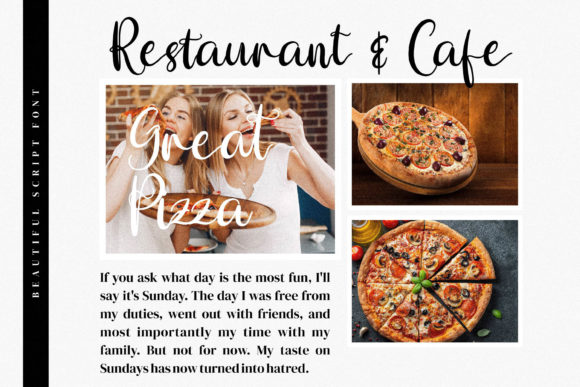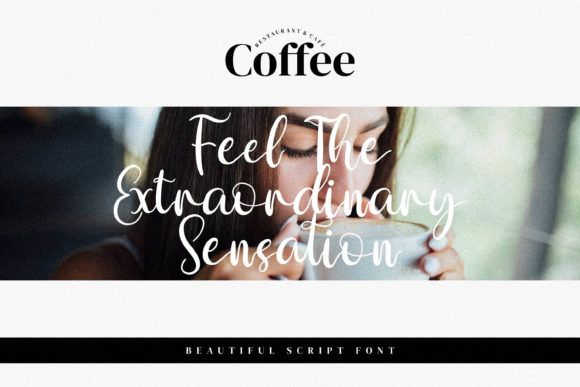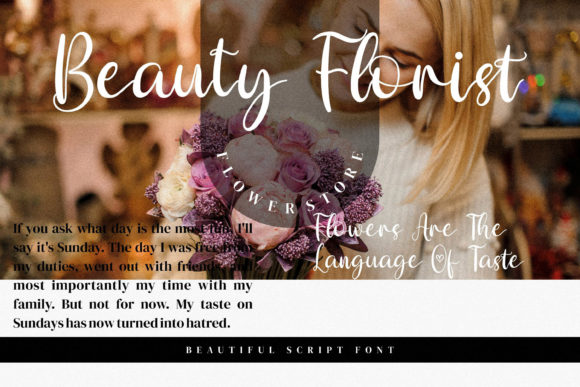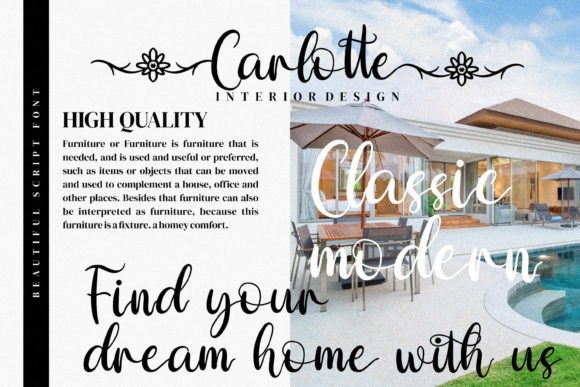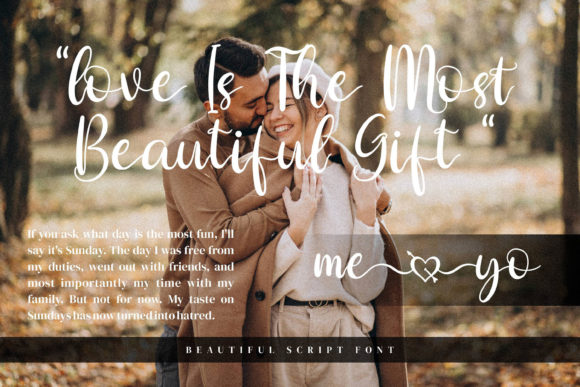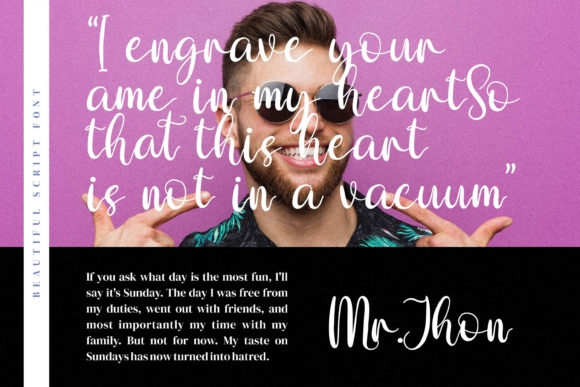
Introduction to Ottami Font
Have you ever found yourself staring at a blank page, waiting for that elusive creative spark to ignite your next design project? For many of us, the perfect font can be the missing piece that brings our ideas to life. And today, we’re excited to introduce you to a game-changing design resource: the Ottami Font.
With its beautiful, light, and cursive script style, Ottami Font is a true gem for designers. Its characters dance along the baseline, adding a touch of elegance to any creative project. Whether you’re working on a high-quality brochure, a website, or a social media campaign, Ottami Font is sure to elevate your design to the next level. Plus, with its PUA encoded features, you can access all the glyphs and swashes with ease, making it a valuable addition to your design toolkit.
Key Features of Ottami Font
- High-quality design: Ottami Font is designed with precision and care to provide a sophisticated look for your creative project.
- Transparent background: The font features a transparent background, allowing for seamless integration with any design or image.
- High-resolution design: The font is designed at a high resolution, ensuring crisp and clear text even at large sizes.
- Perfect for digital design: Ottami Font is ideal for digital design projects, including web design, graphic design, and more.
Honest Review: Ottami Font
I recently had the chance to work with the Ottami Font and I must say, I was impressed. This font is a great addition to any designer’s toolkit, especially when working on creative projects that require a unique touch. One of the standout features of Ottami Font is its high quality and sleek design, which makes it perfect for use on transparent backgrounds. I found it to be incredibly versatile and easy to use.
- ✨ The font’s modern and minimalist aesthetic makes it a great choice for creative projects.
- ✨ The high quality of the font ensures that it looks great on both high and low resolution displays.
However, there are a few limitations to keep in mind. Ottami Font is not suitable for use in all types of projects, particularly those that require a more traditional or formal look. Additionally, some users may find the font to be a bit too minimalist, which can make it difficult to read in certain contexts.
Overall, I was really impressed with the Ottami Font and I would highly recommend it to designers looking for a high-quality, free design resource. While it may not be suitable for every project, it’s a great choice for creative projects that require a modern and sleek look.
⚠️ Not suitable for traditional or formal projects
⚠️ May be difficult to read in certain contexts
Ottami Font
Tips for Getting the Most Out of Ottami Font
Use Ottami Font in combination with a transparent background to create a sleek and modern design. Experiment with different font sizes and styles to add visual interest to your project. Ottami Font is perfect for creative projects, so don’t be afraid to try new and innovative designs.